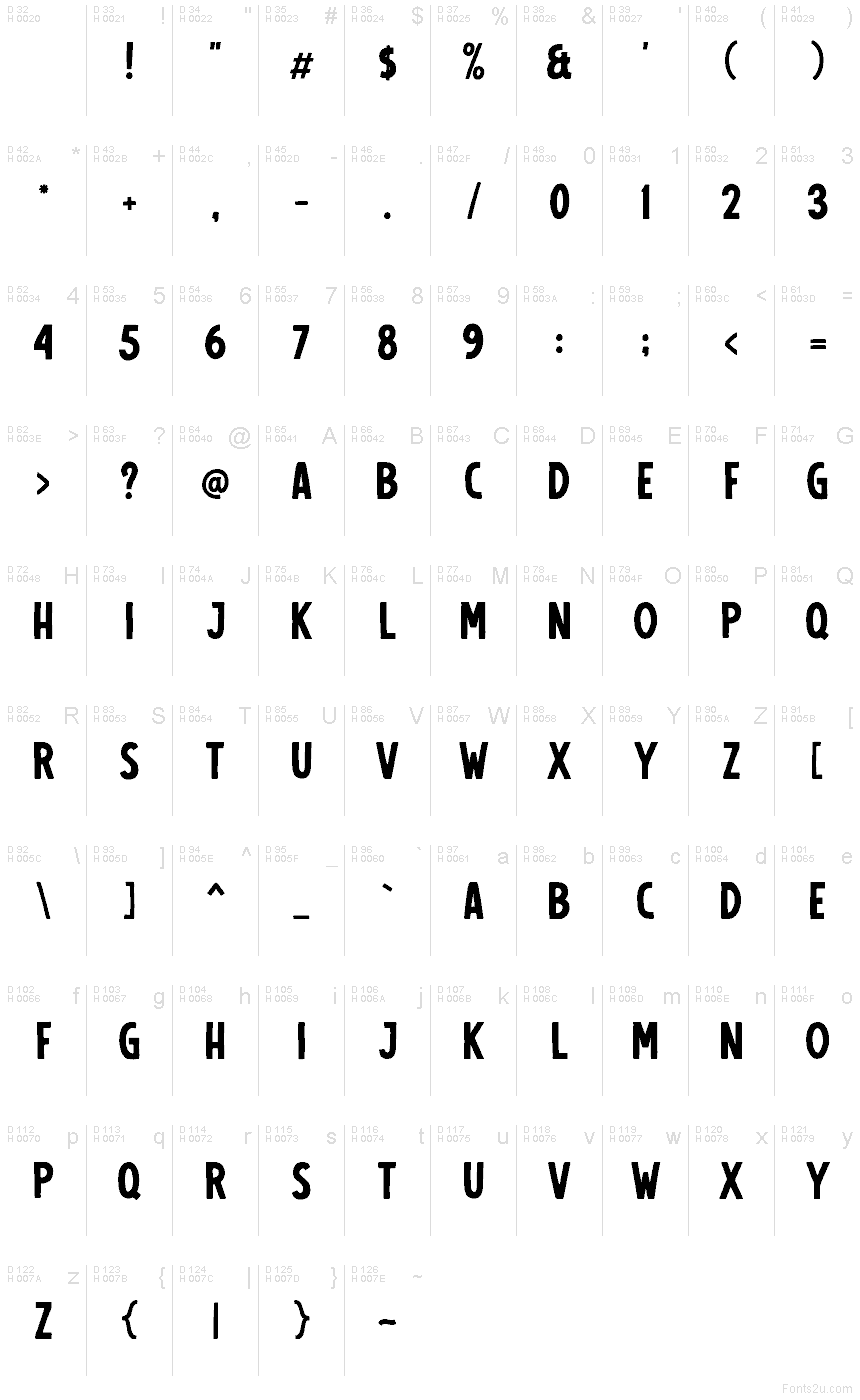
BulgaryReagansDemo
Bulgary Reagans font from Letterhend Studio pairs a retro aesthetic with condensed letters and slightly irregular shapes. The free sans serif font has an expressive, impactful look which exudes a strong presence. Endowed with vintage inspiration, its letters are sharply reminiscent of the styles found in typefaces from decades past.
Create impressive logotypes and wordmarks, or use the typeface on business cards, posters, website menus/headers as well as website landing pages. Bulgary Reagans would make amazing prints for shirts, hoodies or wardrobe elements in general. Headings/titles in books/covers will stand out like no other element!